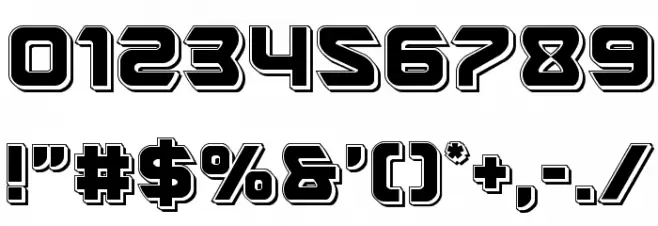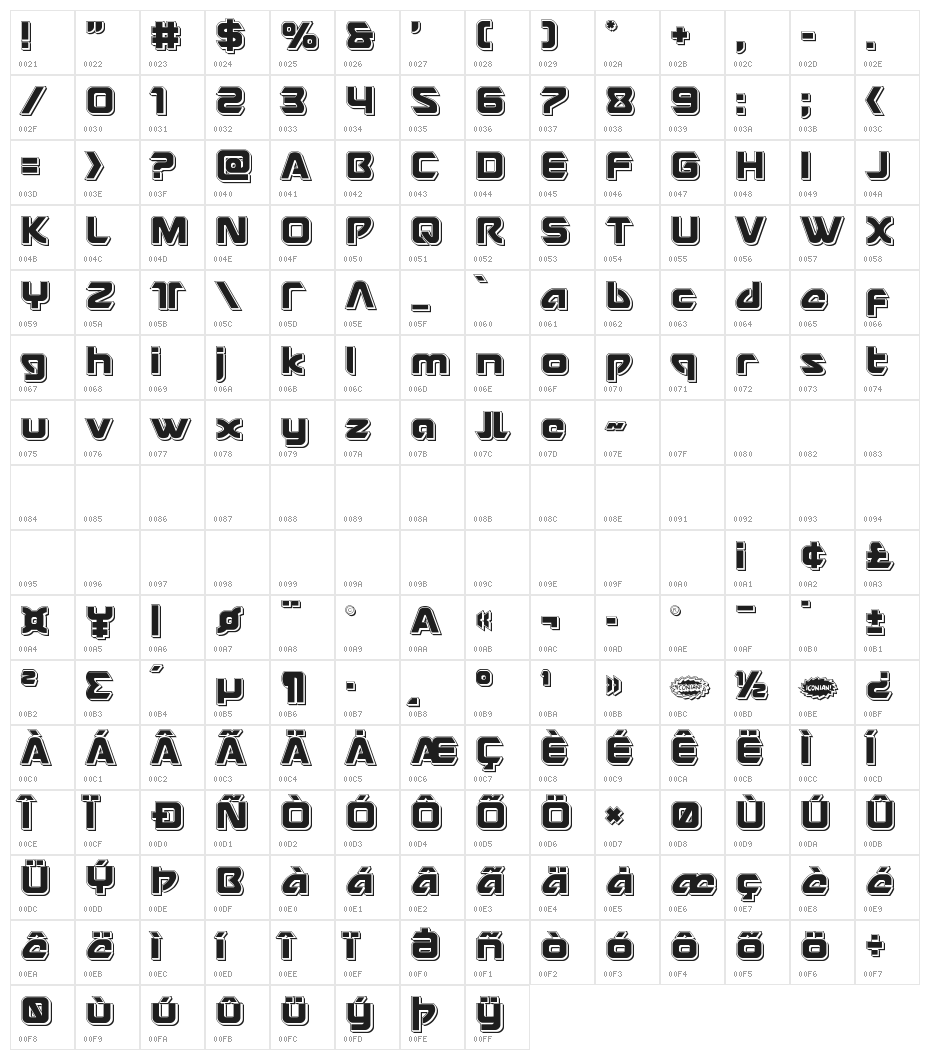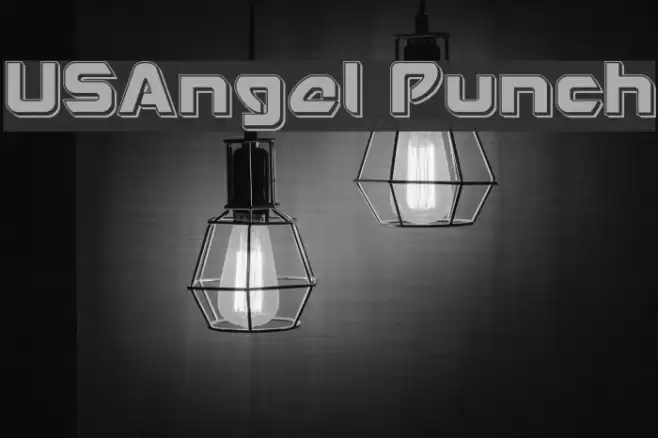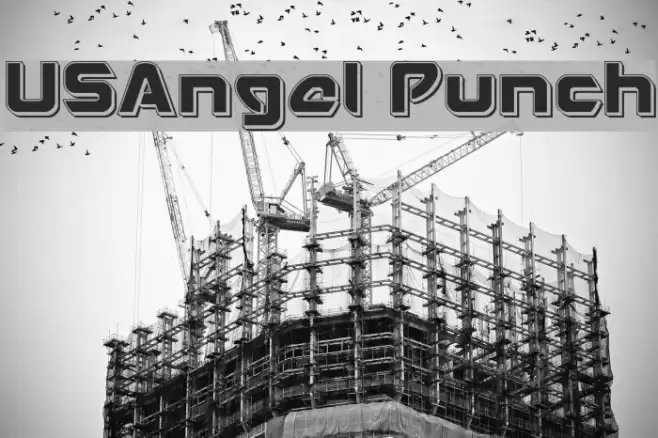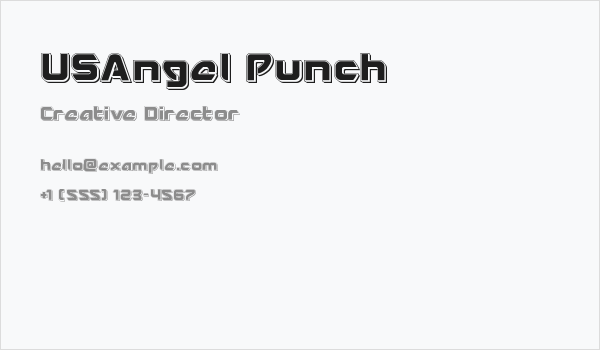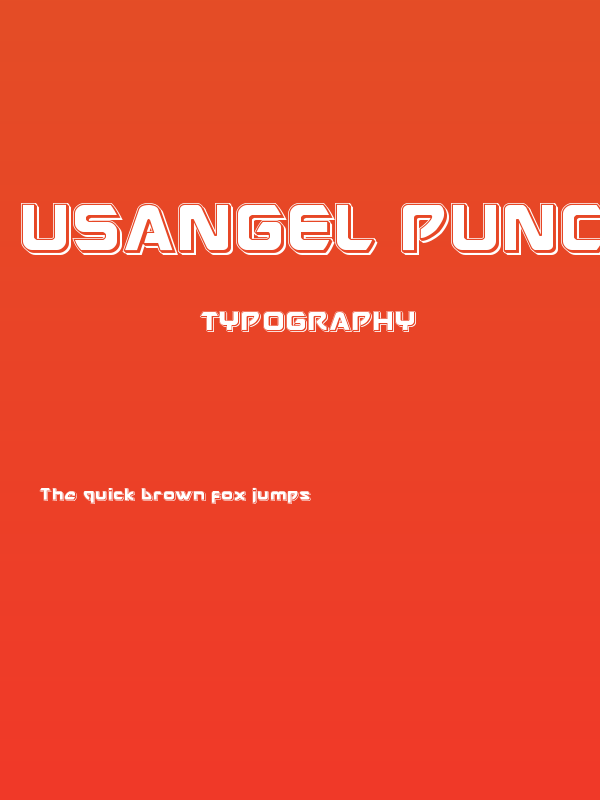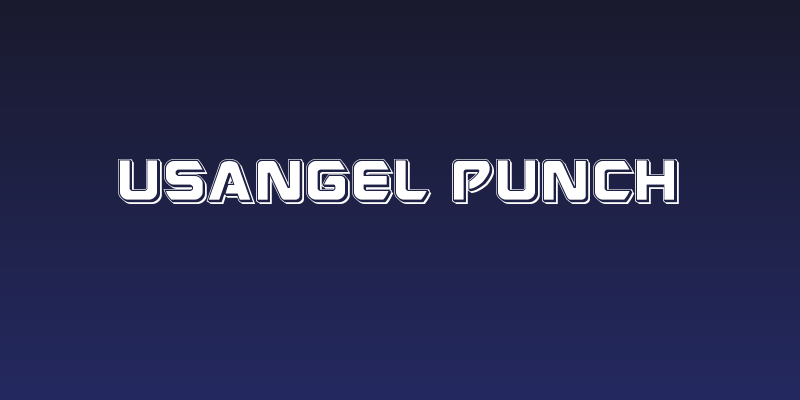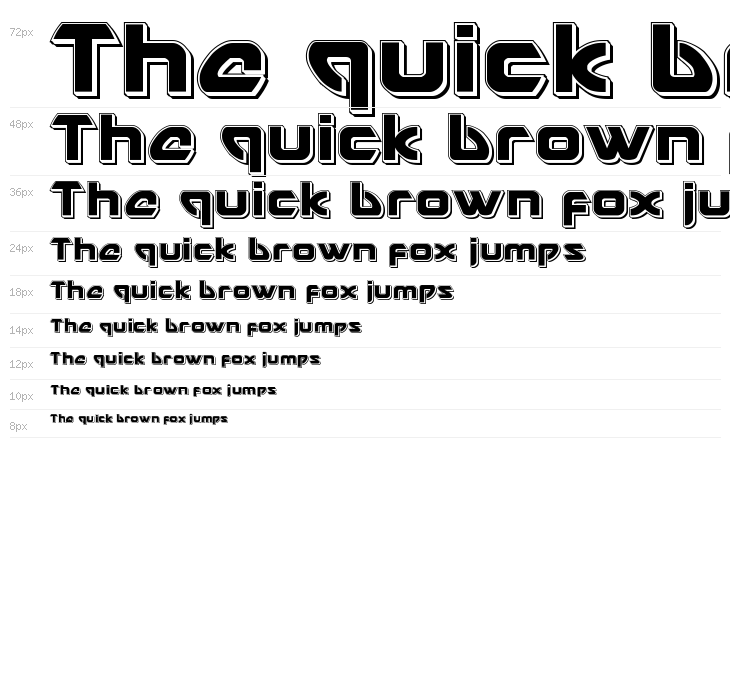
USAngel Punch Font
USAngel Punch Description
This font features a bold, geometric style with a strong 3D effect, created by a thick outline that gives each character a sense of depth. The uppercase and lowercase letters maintain a consistent design, with angular edges and a futuristic appearance. The numbers and special characters follow the same aesthetic, ensuring uniformity across all glyphs. This font's unique style makes it stand out, ideal for projects that require a modern and impactful look.
| Proposed Projects | Ideal for video game titles, tech branding, posters, and any design needing a modern, eye-catching typeface. |